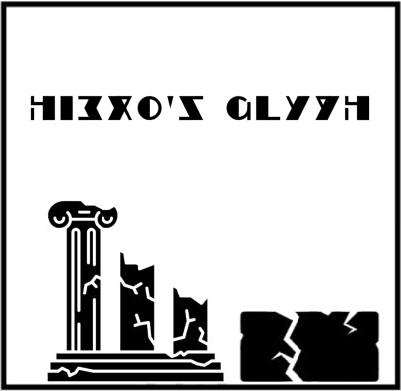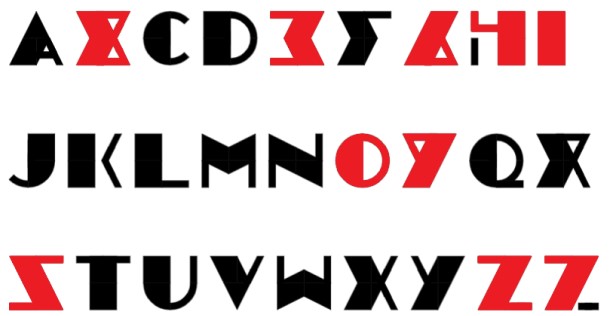
This is an excellent experimental font!
It's not easy to read, but it's very eye-catching! Good luck in the Comp, pal!
Some of these glyphs borderline some pretty renegade experimentation, cool stuff.
its like an old hotel font, right? i think